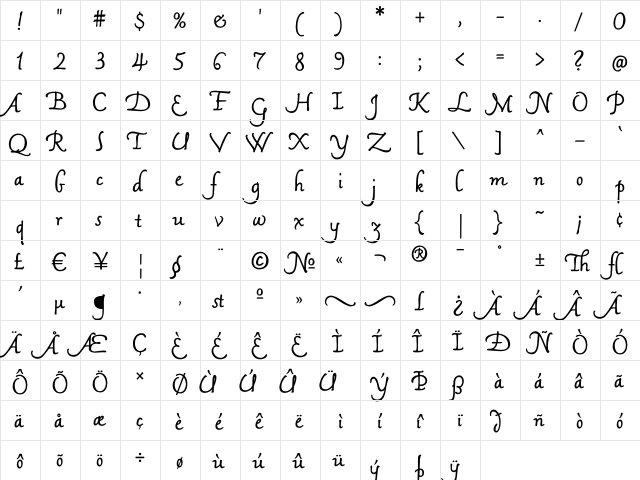
Mama Script Alternates Regular
Design Context for Mama Script Alternates Typeface
Mama Script Alternates flows with the natural rhythm of handwritten lettering, making it ideal for designs that call for warmth and personal expression.
Font Pairing: Combine Mama Script Alternates with a simple geometric sans for maximum contrast — the tension between flowing curves and clean structure is a classic typographic pairing.
Pro Tip: Use Mama Script Alternates for short runs of text — names, titles, or taglines. Extended body copy in script faces tires the eye quickly.